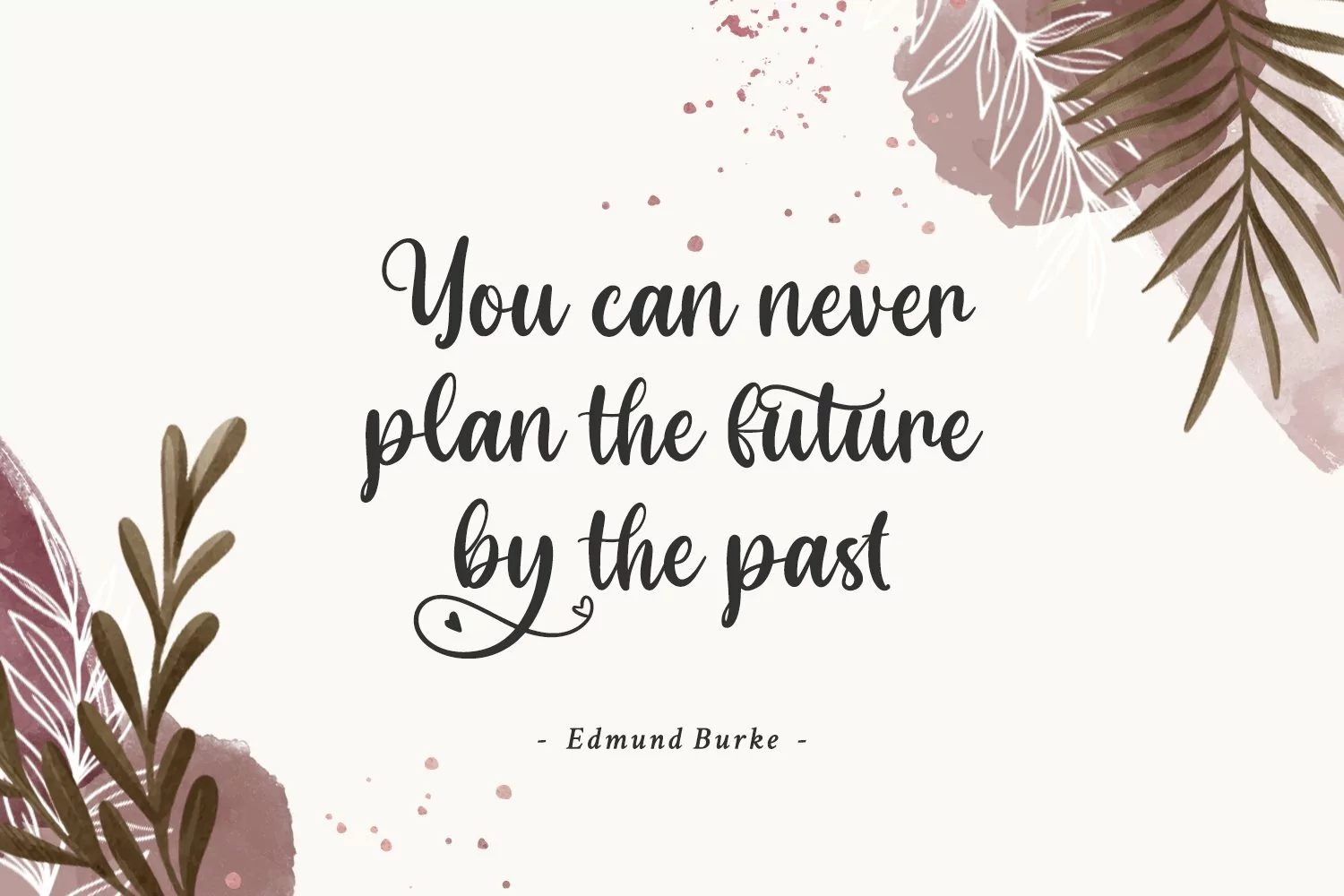
Want to travel your audience to a world of gorgeous, elegant, versatile, yet modern? Looking for a font that makes your projects to spark happiness? Then, you go to the right way.
Introducing Angelin Heart- A Calligraphy Font
A modern and stylish handcrafted signature font that’ll make your audience swoon and enhance your projects. Suitable for social media posts and ads, printed quotes, t-shirt designs, packaging, or even as a modern text overlay to any background image.
Angelin Heart includes Multilingual Options to make your branding globally acceptable.